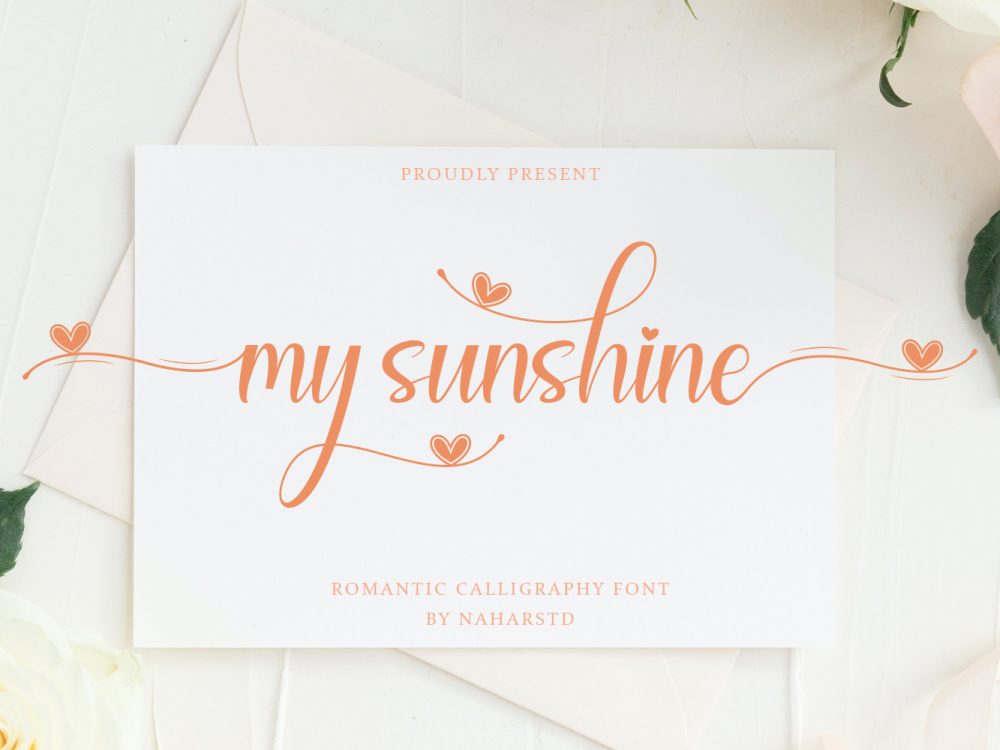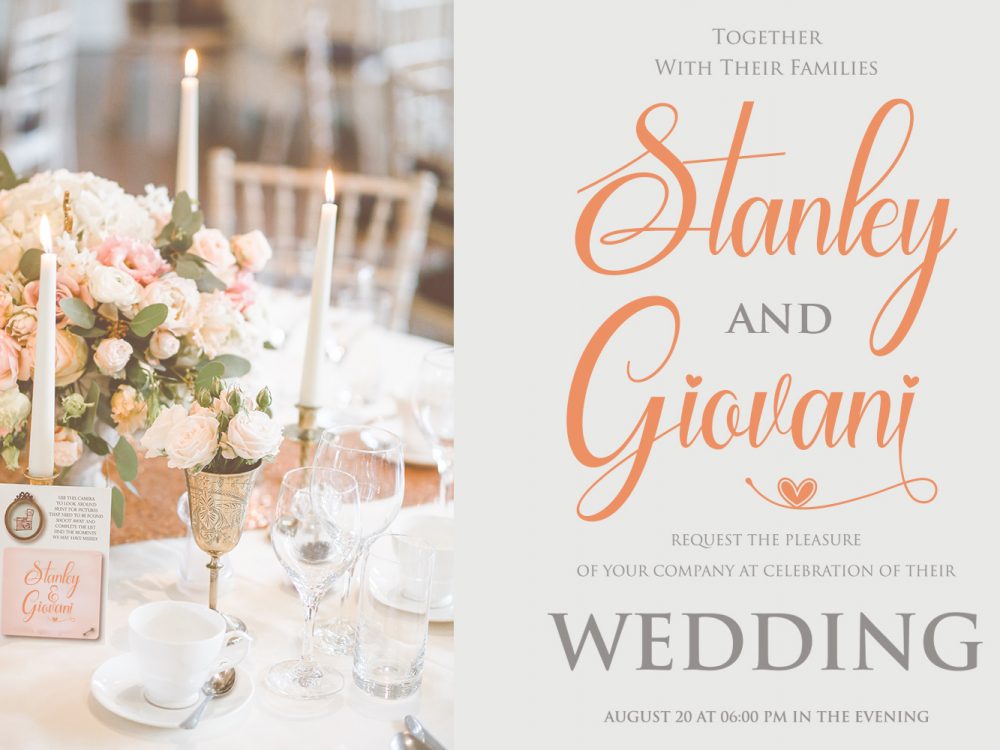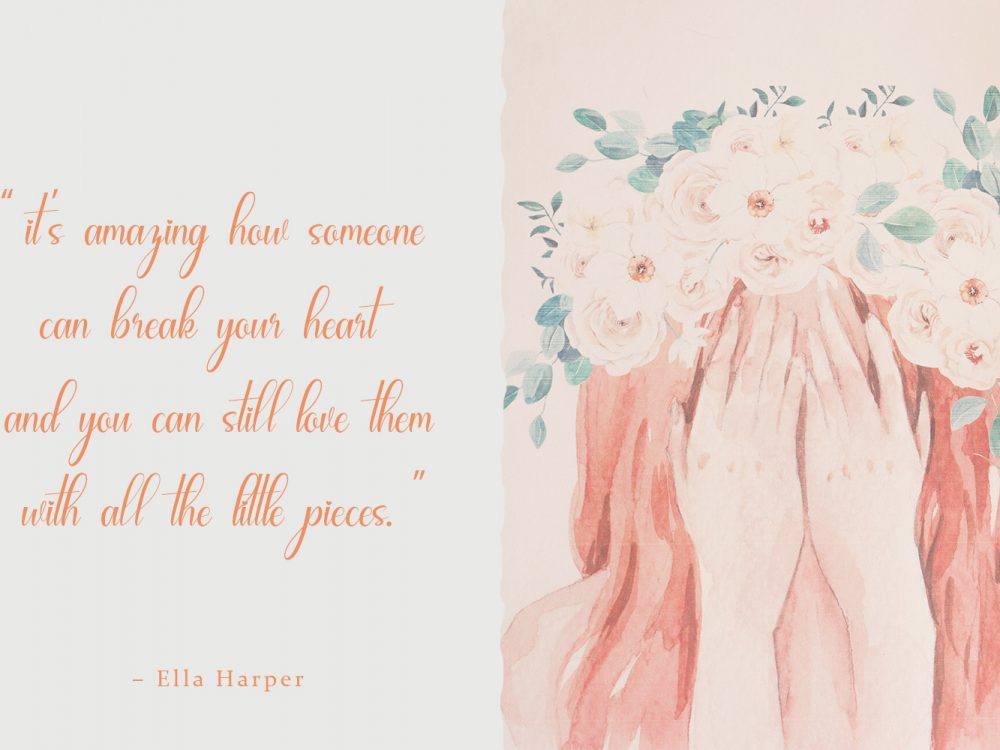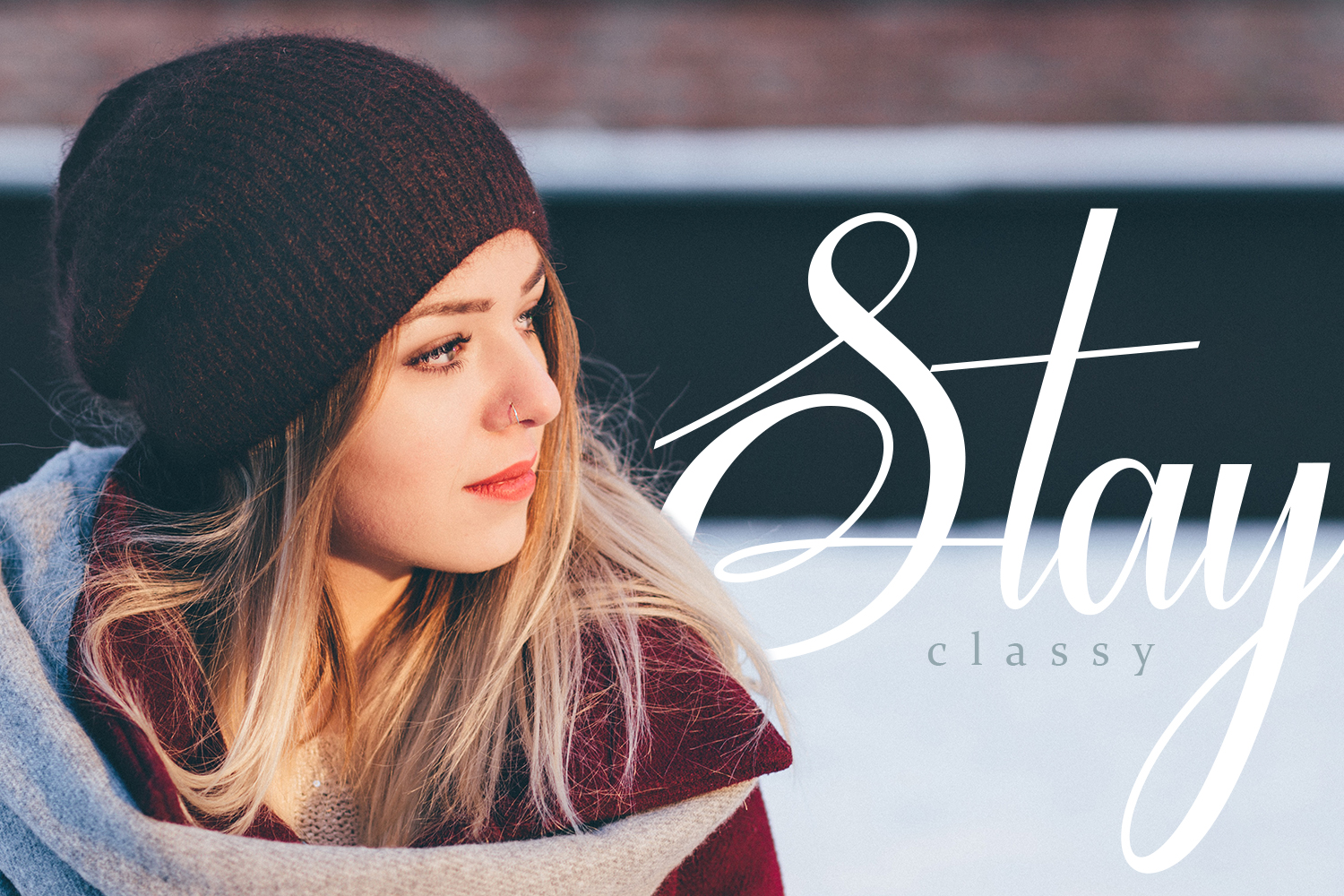
My Sunshine Free Font
My Sunshine Free Font is an interesting script typeface that features a modern calligraphic style. This font is very suitable for creating various projects that require a scripted handwritten font. Use this font to create memorable romantic posters, logos, wedding designs, social media posts, advertisements, product packaging, product designs, label, photography, watermark, invitation, stationery, and more. Improve your professional level using this font. If you like it don’t forget to check out the full version.
Author: Nahar Studio